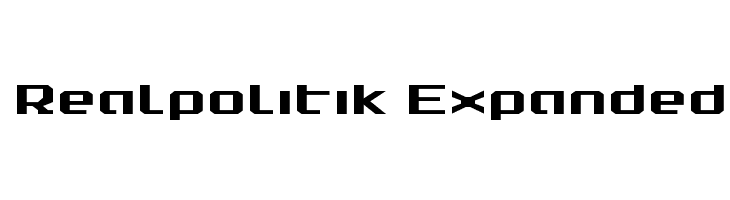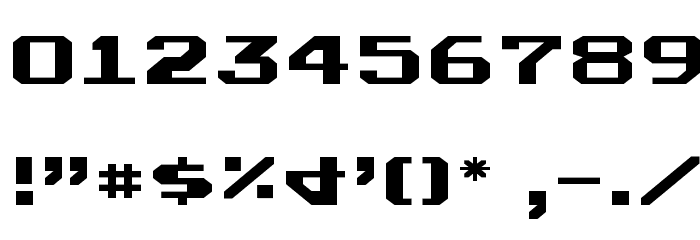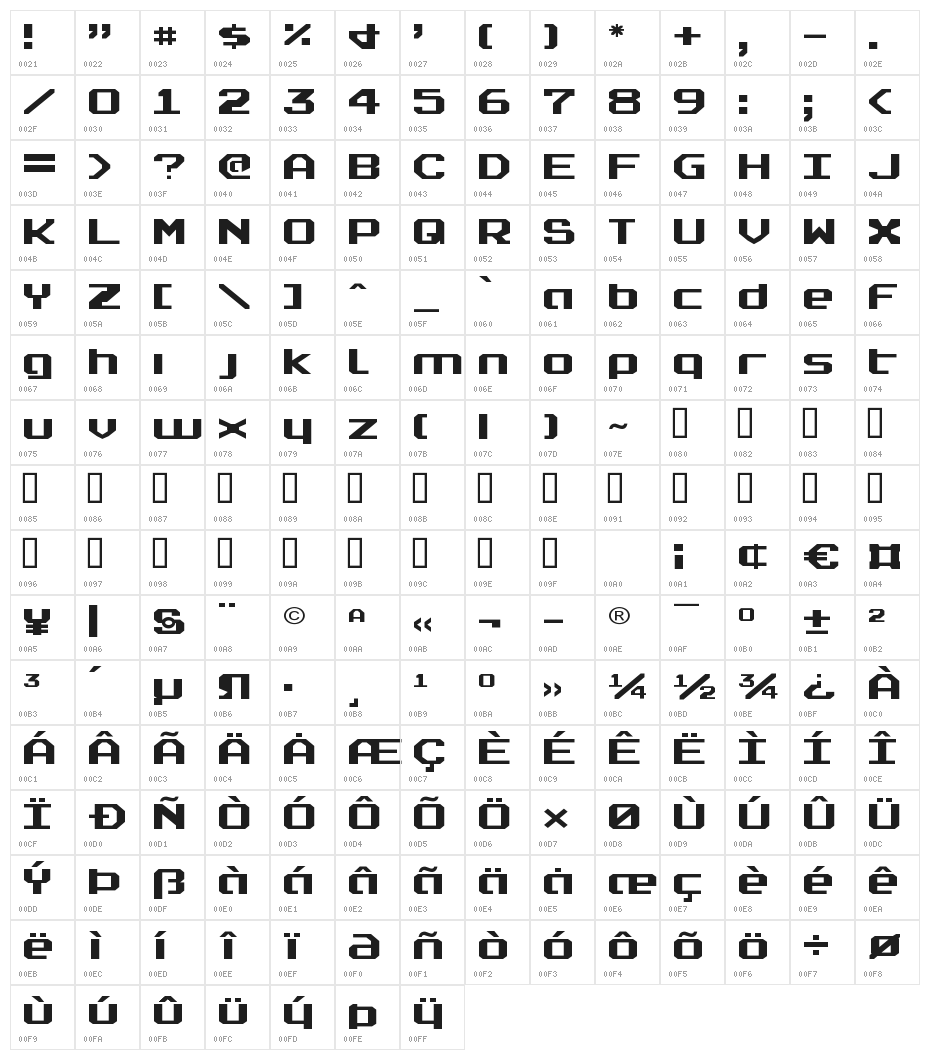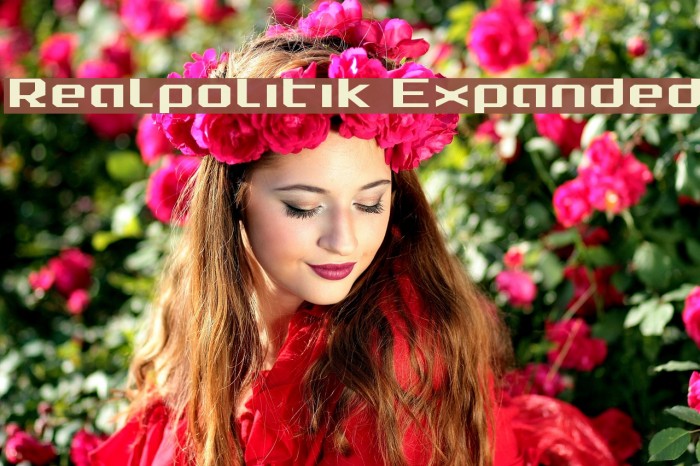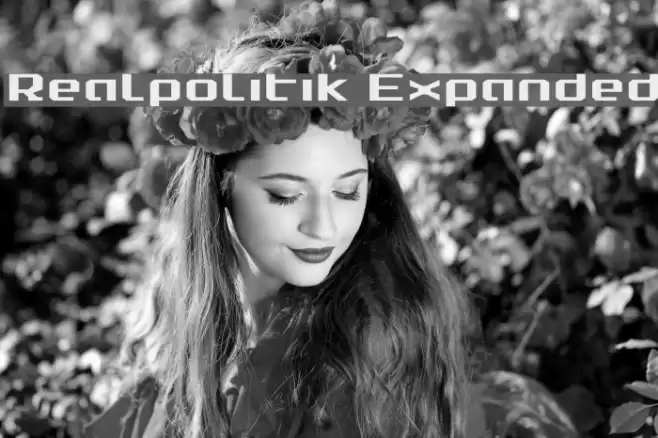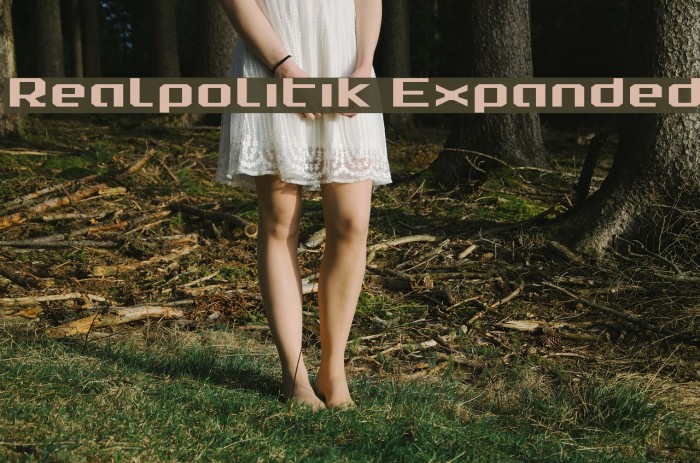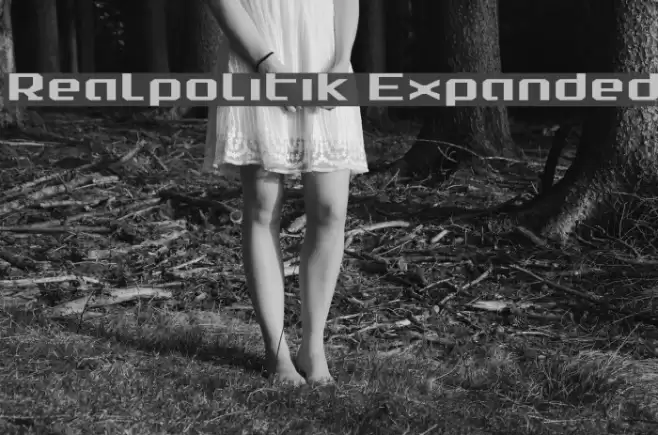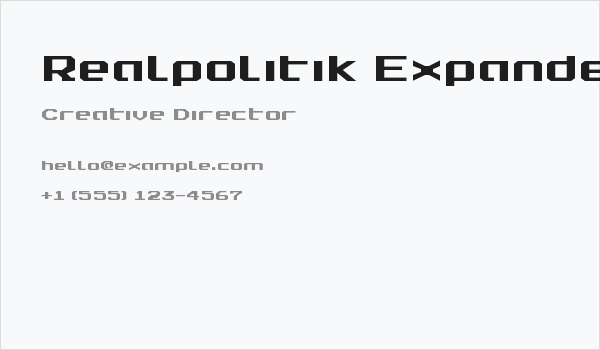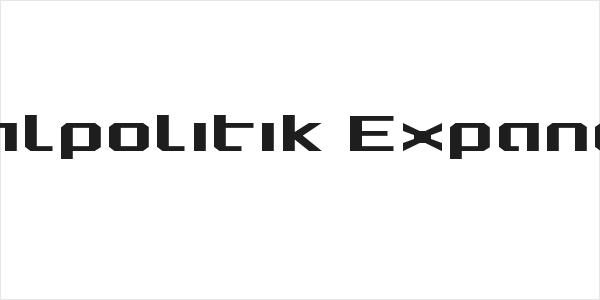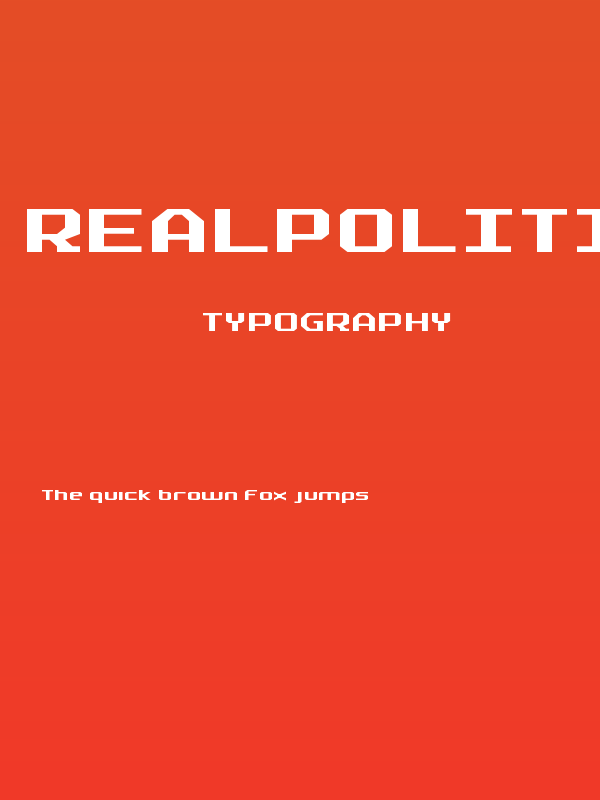
Realpolitik Expanded Font
Realpolitik Expanded Description
This font features a bold, geometric design with a distinctly modern and industrial feel. The characters are constructed with sharp angles and straight lines, giving it a robust and sturdy appearance. The uppercase and lowercase letters maintain a consistent width, contributing to a uniform and cohesive look. The numerals and special characters are designed to match the angular style, ensuring a seamless integration across all text elements. This font's expanded width and strong presence make it ideal for impactful headlines and attention-grabbing designs.
| Proposed Projects | Ideal for branding, posters, headlines, and any design requiring a strong, modern aesthetic. |